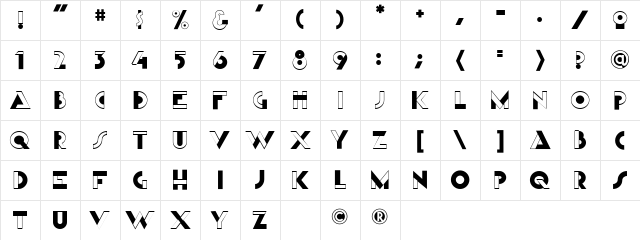
Complete CCDutchCourage Regular glyph index. Displaying only characters natively supported by CCDutchCourage Regular font.
CCDutchCourage is a composed and adaptable typeface that performs quietly and consistently across a wide range of design contexts.